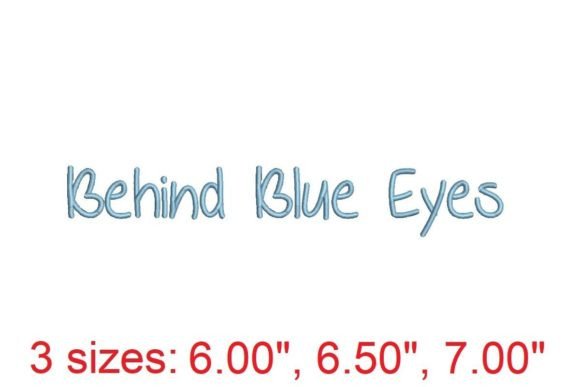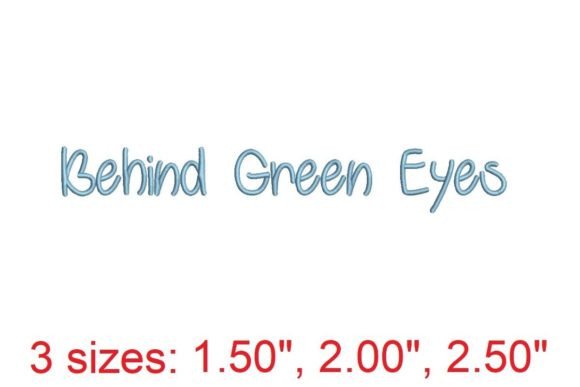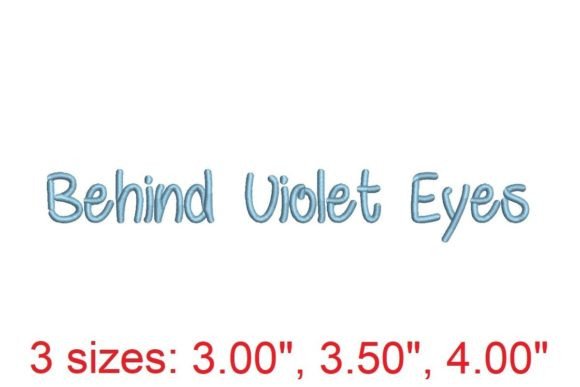
Behind Violet Eyes Embroidery Font Review
As an embroidery designer with years of experience, I’ve had the chance to test the Behind Violet Eyes Embroidery Font on a variety of personalized gift projects. This font has a unique charm that can elevate any fabric into something truly special. Whether you're creating baby items, wedding keepsakes, or custom tote bags, this design offers both elegance and versatility.
The First Impression: A Touch of Elegance
From the moment I laid eyes on the Behind Violet Eyes Embroidery Font, I was struck by its delicate yet bold character. The font exudes a sense of quiet sophistication, making it ideal for gifts that carry emotional weight. It feels handmade, with intricate details that add depth without overwhelming the design. This makes it perfect for customers looking for something that feels personal and meaningful.
The font’s soft curves and subtle flourishes give it a romantic and timeless appeal. It’s not overly modern, nor is it too traditional—it sits in a beautiful middle ground that works well for a wide range of projects. Whether you’re stitching a nursery item or a custom apron, the Behind Violet Eyes Embroidery Font adds a touch of class that stands out.
Where It Shines: Personalized Gift Applications
This font is particularly well-suited for personalized gift projects. For example, when I used it on a baby blanket, the result was both elegant and comforting. The font’s gentle lines made it feel safe and nurturing, which is exactly what parents look for in a baby item. Similarly, when I applied it to a pillow cover for a wedding gift, it added a subtle romantic flair that complemented the occasion perfectly.
For custom embroidery on towels, the font held up well, though I noticed that the finer details could be lost on thicker fabrics. That said, with the right thread color contrast and proper stabilizer, it still produced a beautiful finish. It also worked well on blanket embroidery, where the softness of the design matched the warmth of the fabric.
On tote bags and aprons, the Behind Violet Eyes Embroidery Font looked stunning. It gave the products a handmade quality that appeals to customers who value craftsmanship. As an Etsy seller, I know that such details can make a big difference in customer engagement and perceived value.
Where to Use With Caution
While the Behind Violet Eyes Embroidery Font is versatile, there are certain applications where it may not perform as well. For instance, on small lettering or delicate details, the font can become less readable. If you're planning to use it for a name tag or a small monogram, you might want to consider a simpler style.
When working with textured fabric or thick towels, the design may not stitch as cleanly. In these cases, adjusting the stitch density and using the right stabilizer can help. Similarly, on stretchy baby clothes, the font may lose some definition if not properly secured.
It’s also important to note that the font may not show up well on dark fabric unless you use a contrasting thread color. Testing the design on both light and dark backgrounds is a smart move before committing to a full project.
Impact on Giftability and Customer Trust
The Behind Violet Eyes Embroidery Font has a strong emotional appeal, which can significantly enhance the giftability of your products. When customers see a beautifully embroidered item, they’re more likely to perceive it as a thoughtful, high-quality handmade product.
This font also helps build customer trust because it signals attention to detail and care in the creation process. For small shop product creators, this can make a big difference in standing out from the competition. It also supports buyer engagement, especially when paired with compelling printable mockup visuals for Etsy listings or social media.
Additionally, the font’s aesthetic contributes to a stronger emotional connection between the customer and the product. Whether it's a wedding gift or a family keepsake, the design can make the item feel more meaningful and memorable.
Practical Embroidery Tips
To get the best results with the Behind Violet Eyes Embroidery Font, here are a few key tips:
These steps will help you maximize the potential of the Behind Violet Eyes Embroidery Font while maintaining the quality and professionalism your customers expect.
Final Thoughts: A Versatile Choice for Thoughtful Gifts
In my experience, the Behind Violet Eyes Embroidery Font is a valuable addition to any embroidery designer’s toolkit. Its balance of beauty and functionality makes it ideal for a wide range of personalized gift projects. Whether you're creating baby embroidery, wedding gifts, or custom embroidery for a small business, this font can help you deliver something truly special.